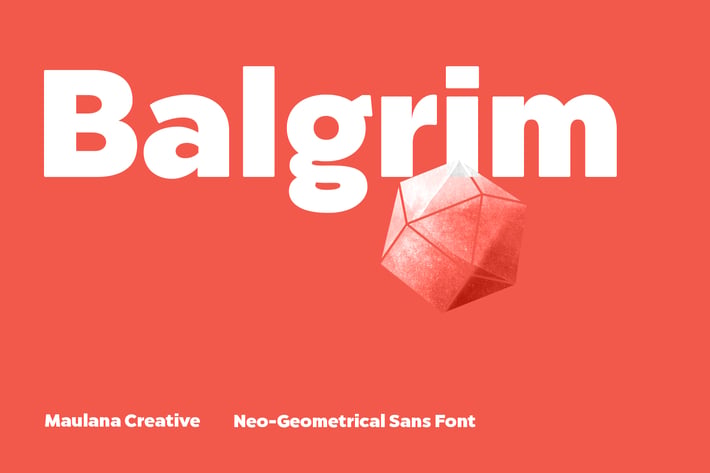
Balgrim Sans Serif Font
Balgrim is a modern Neo geometrical sans font. Bold stroke, fun character with a bit of ligatures and alternates. To give you an extra creative work. Balgrim font support multilingual more than 100+ language. This font is good for logo design, Social media, Movie Titles, Books Titles, a short text even a long text letter and good for your secondary text font with script or serif. Make a stunning work with Balgrim font.